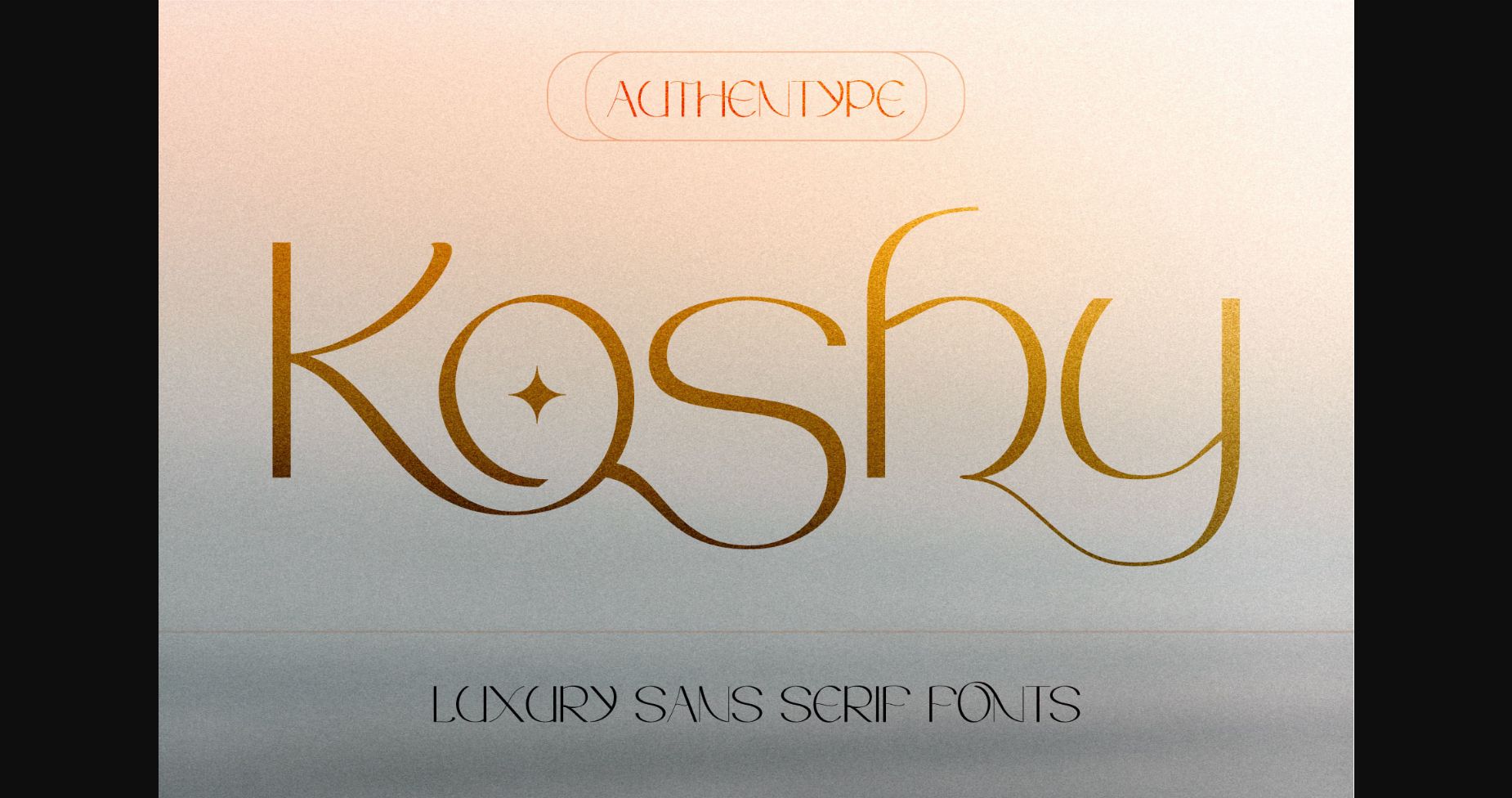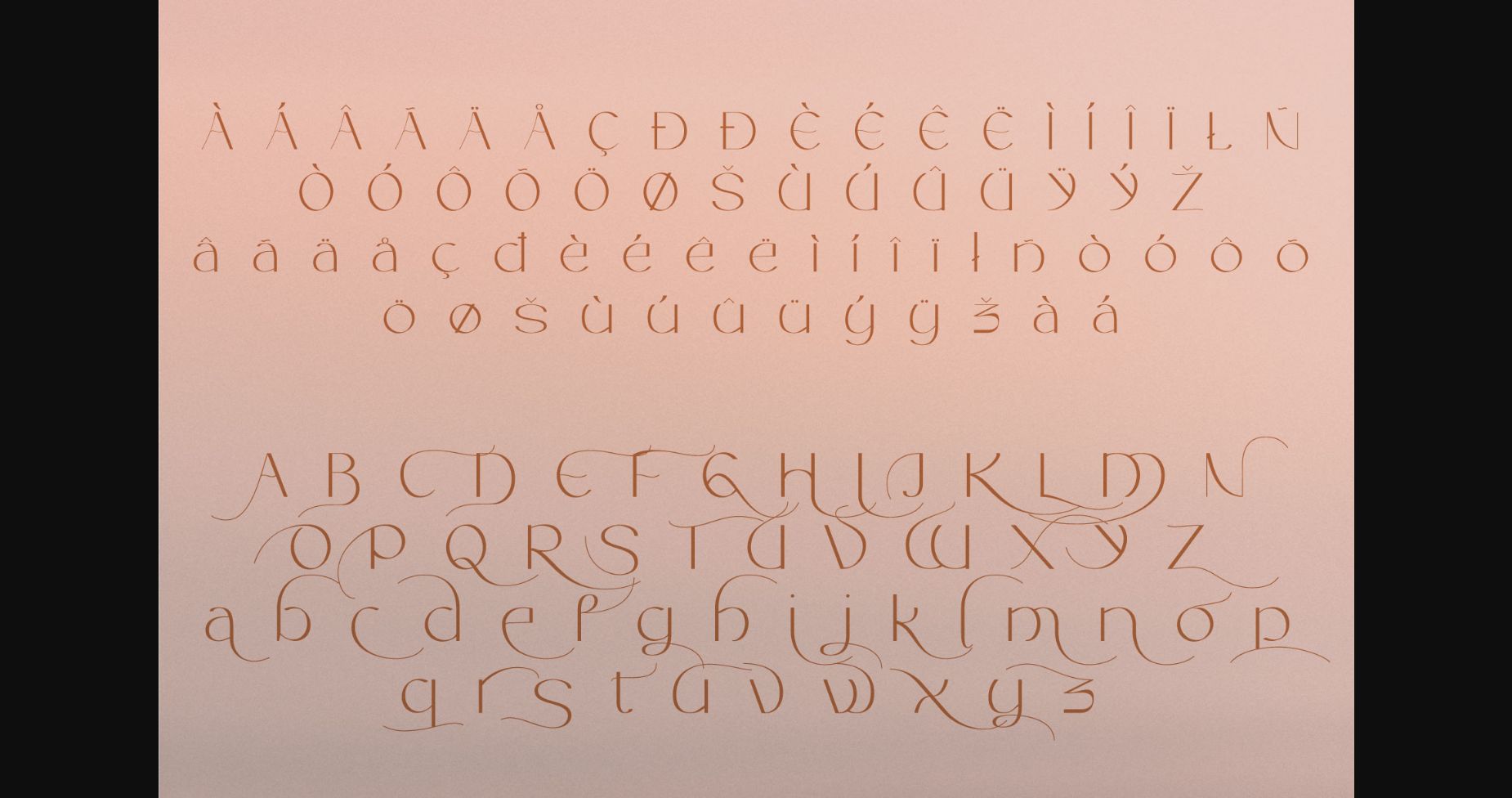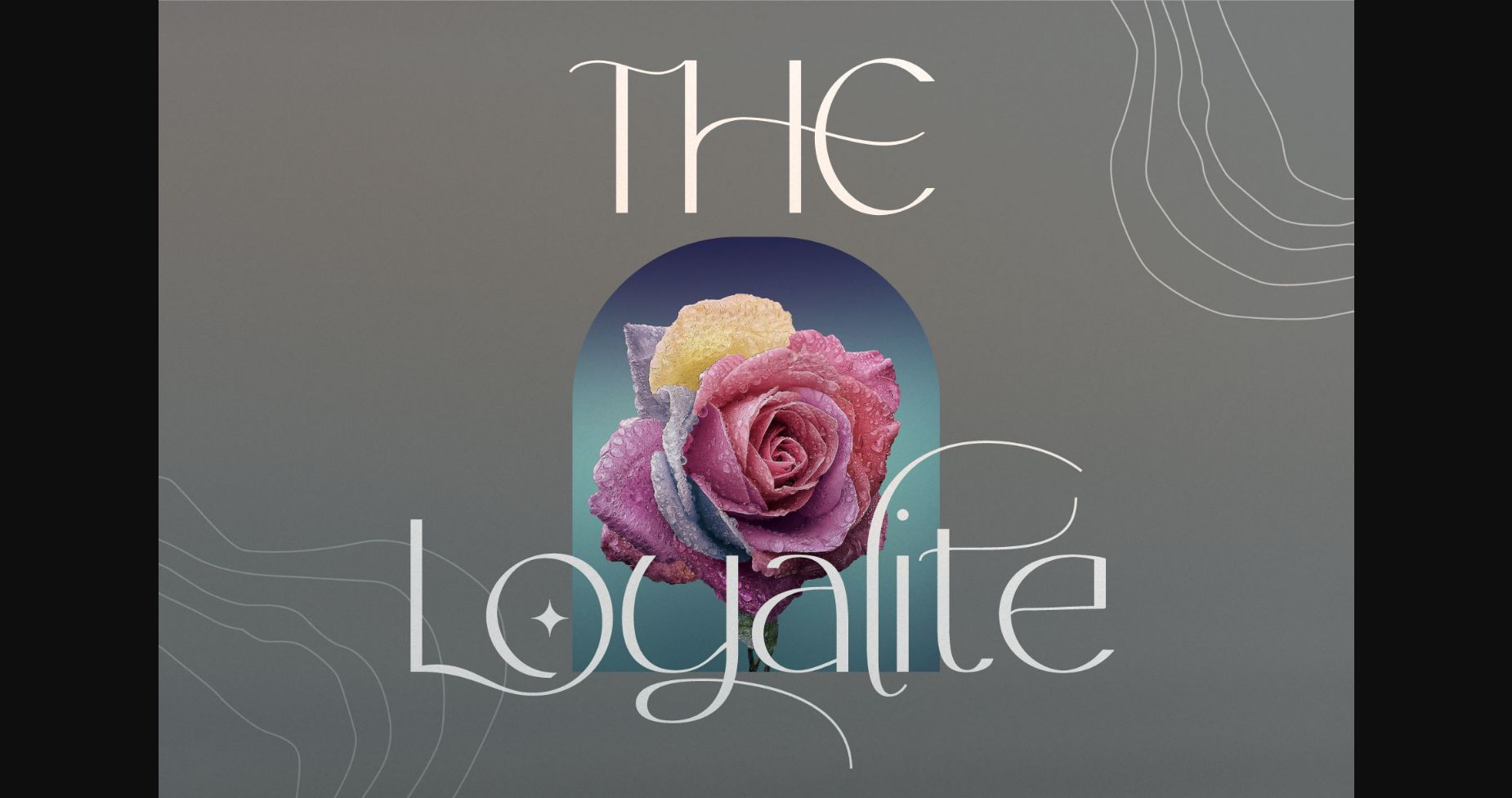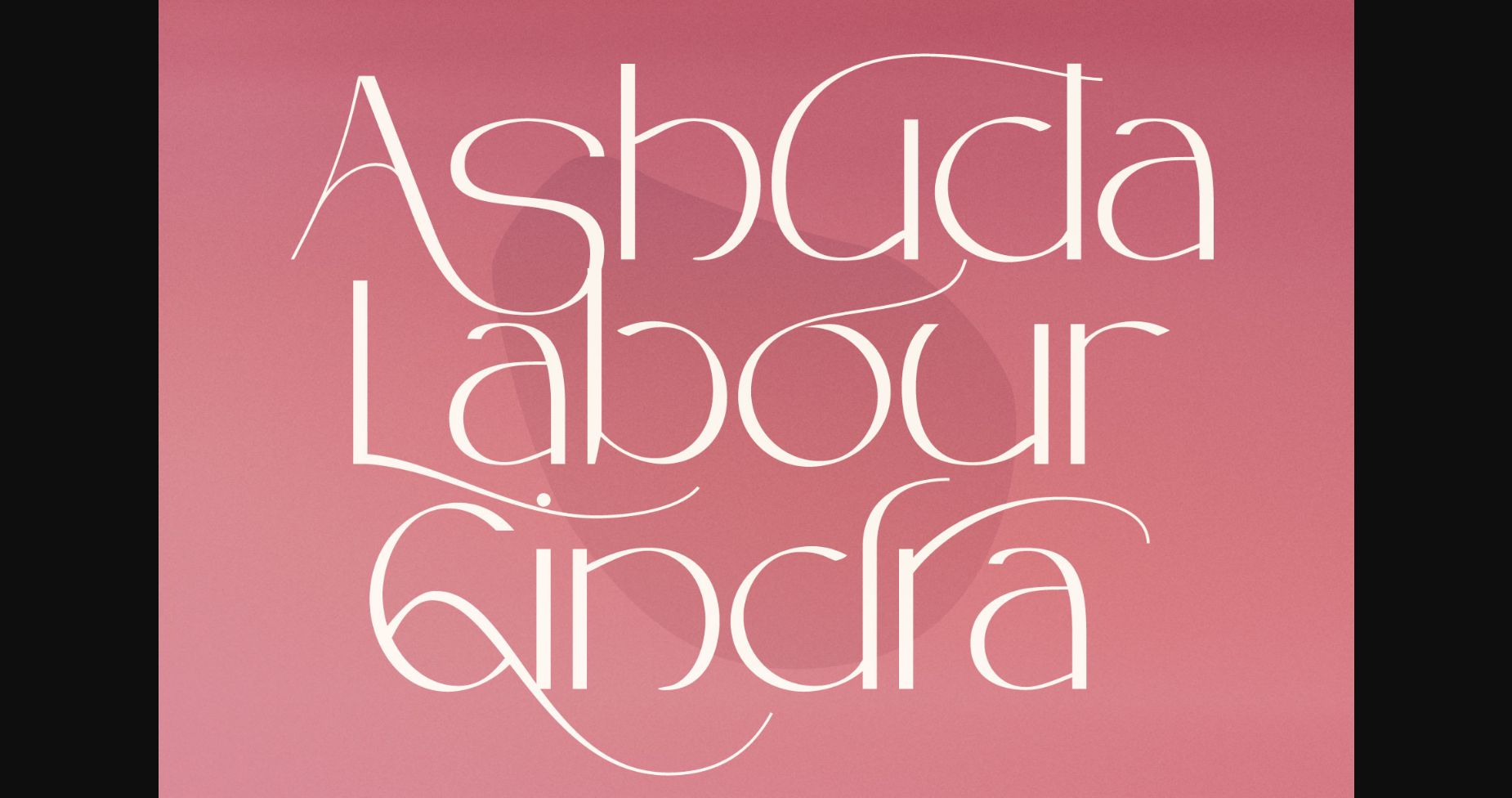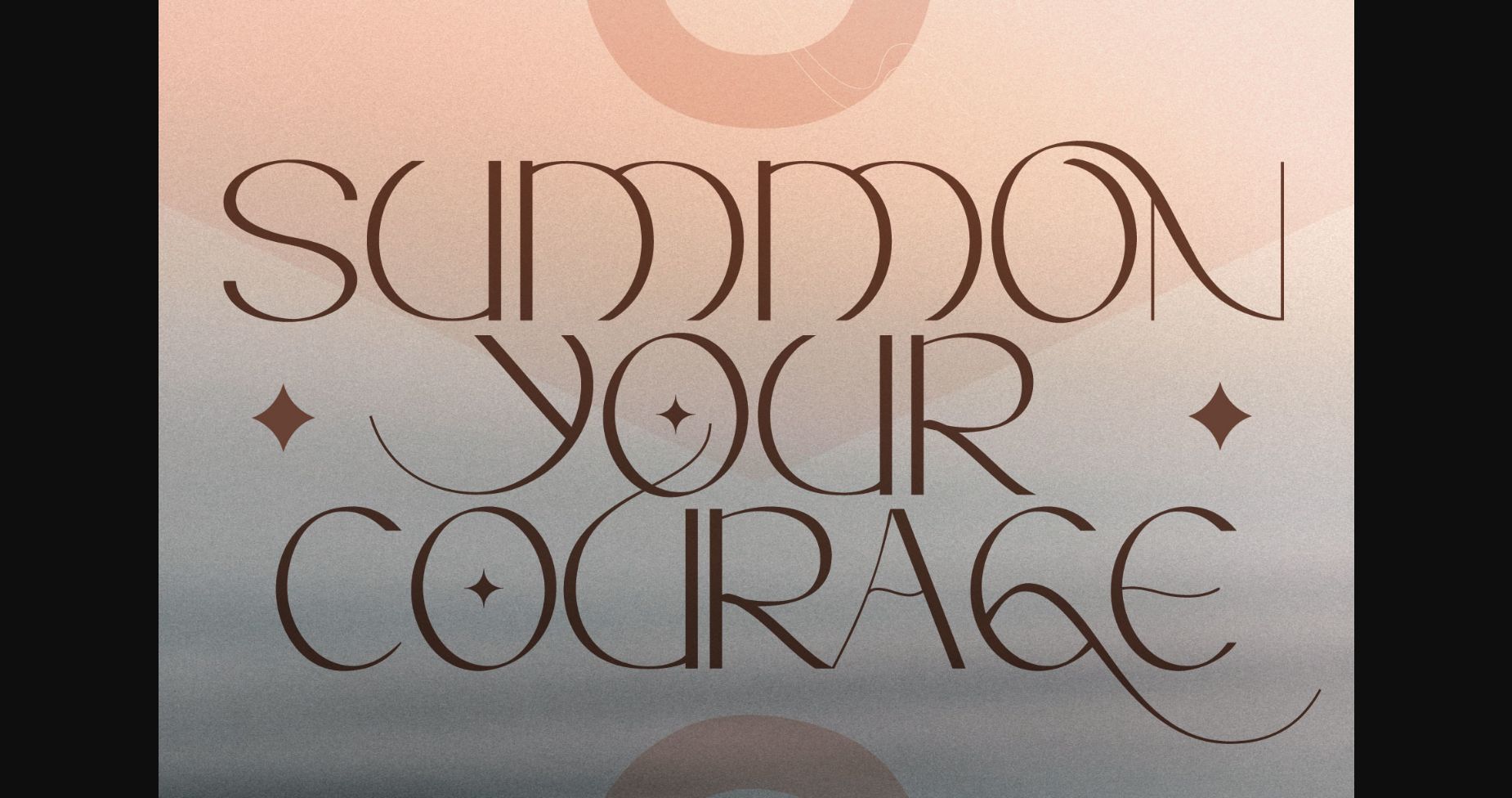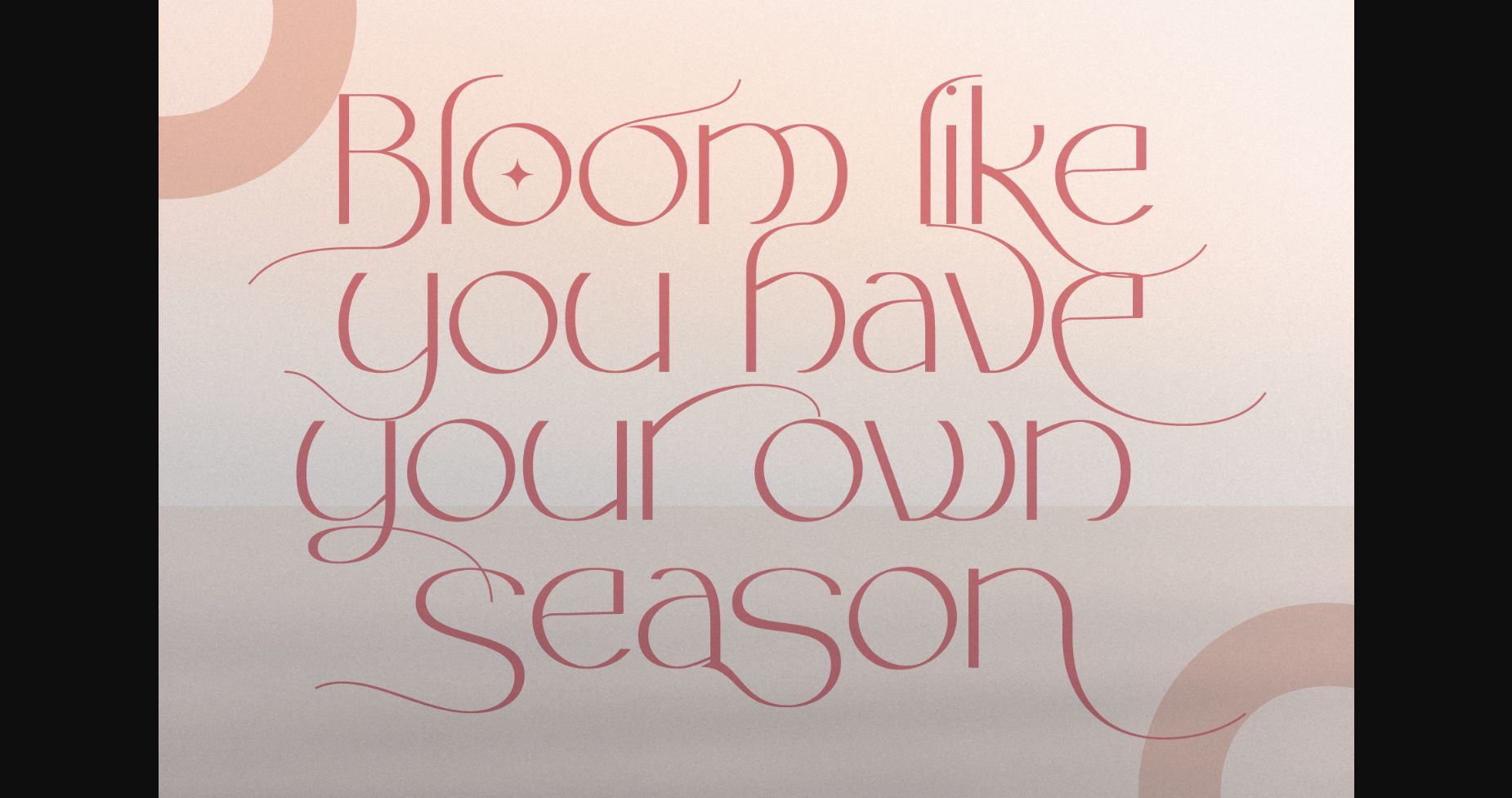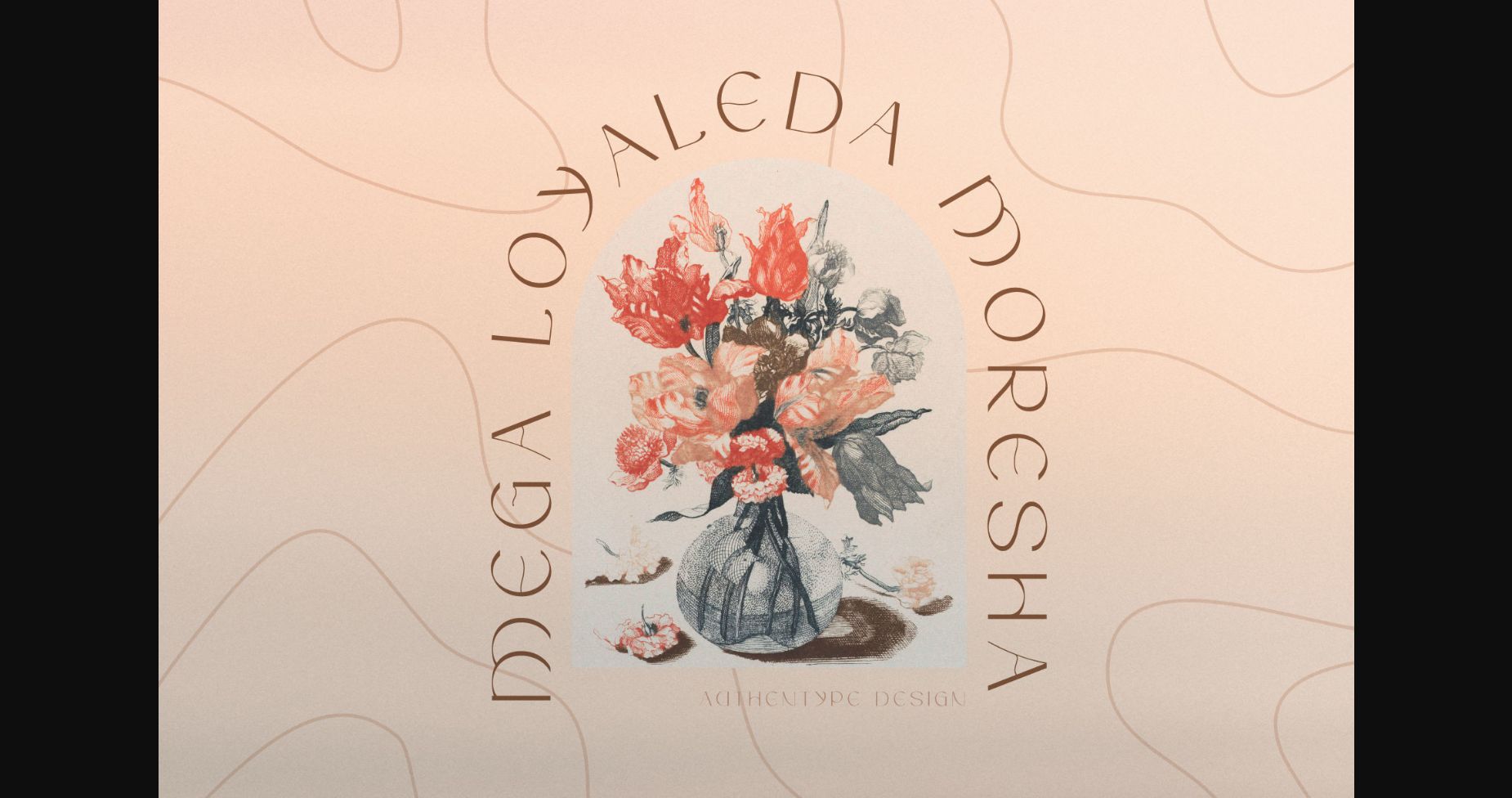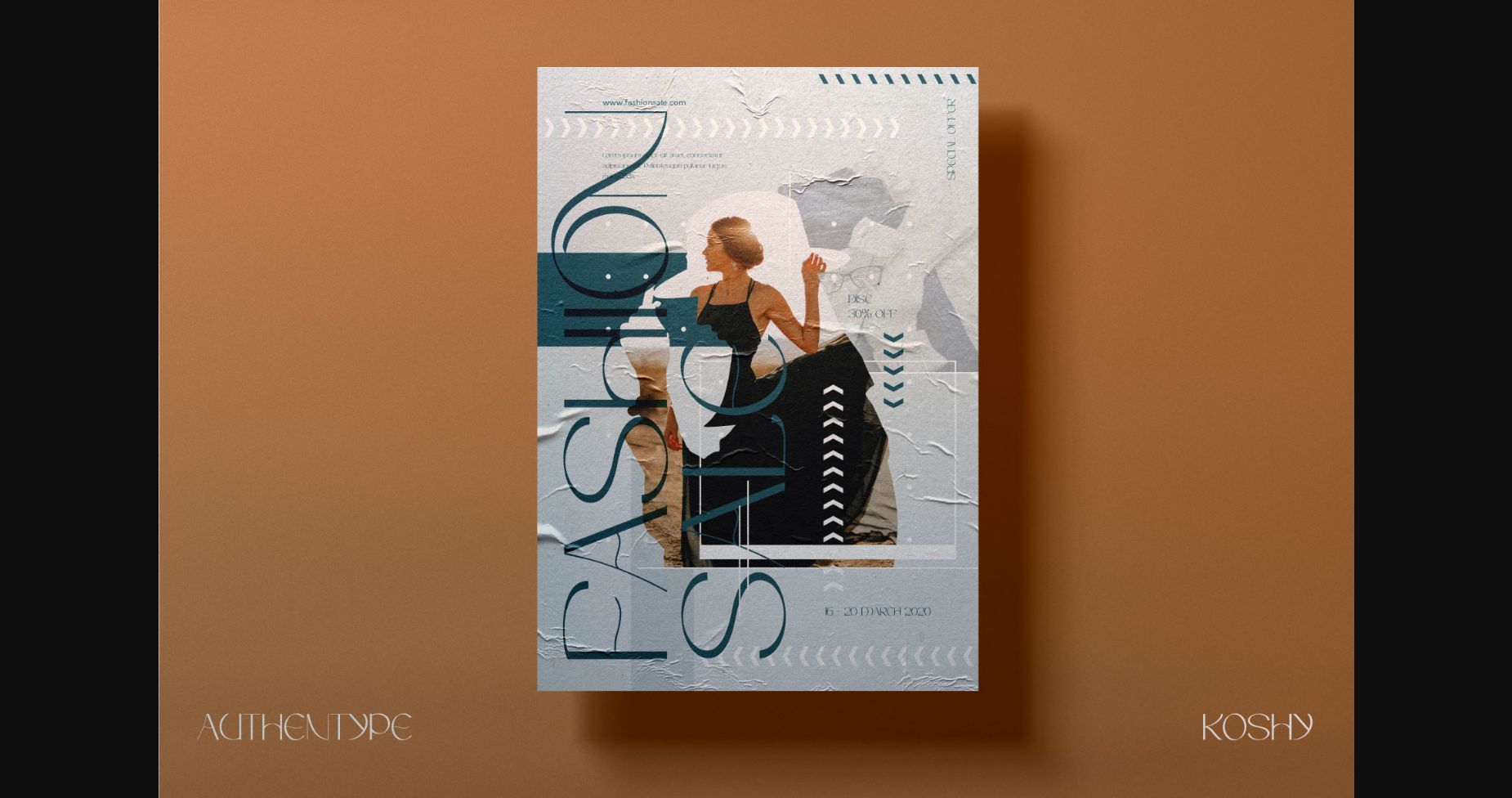
Koshy Font
About Koshy Font
Koshy is a luxurious and stylish sans serif font. It features a classic and elegant style, perfect for poster design, magazines, beauty branding, and other elegant design concepts.